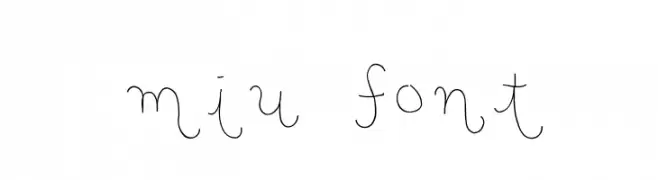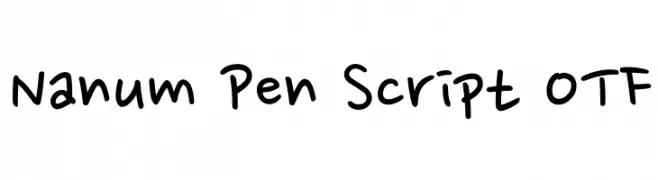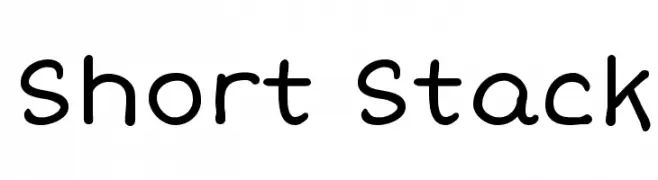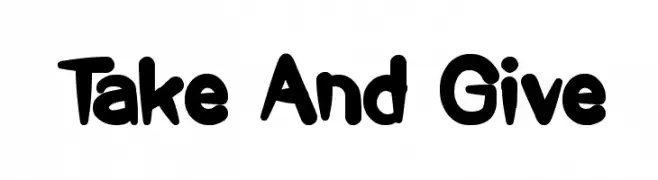
A playful, handwritten font with rounded, consistent strokes.
A casual, handwritten-style font with smooth, flowing lines and a friendly appearance.
A casual, friendly handwritten font with smooth, flowing strokes.
A playful, hand-drawn font with a whimsical and artistic style.
A playful, bold font with rounded, thick strokes and a friendly appearance.
A playful, casual handwritten font with irregular strokes and a lively feel.